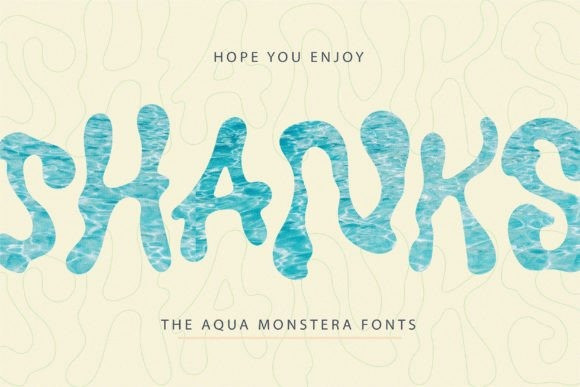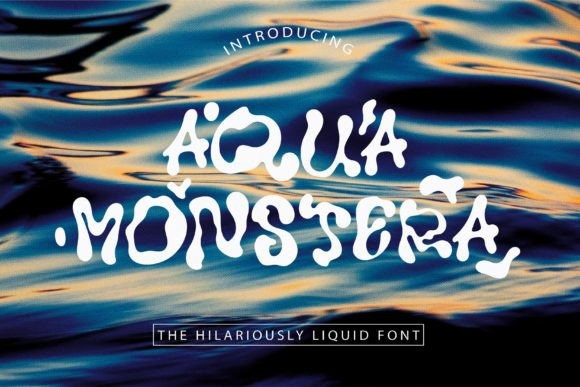
Aqua Monstera Font A font that brings the mesmerizing fluidity of water to the world of typography. Organic and dynamic shapes evoke the playful dance of water drops.This product is part of Creative Fabrica’s free font collection.
| Classification: | Playful / Fun Fonts |